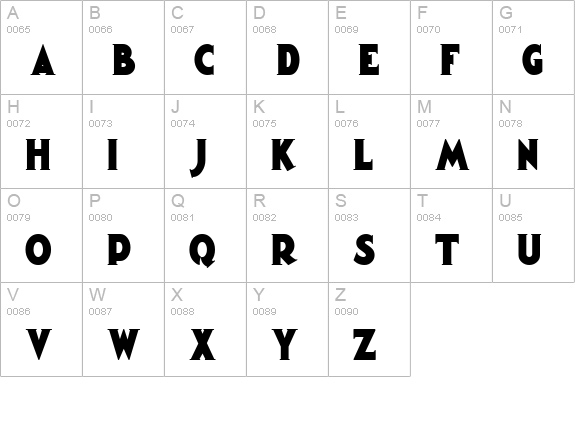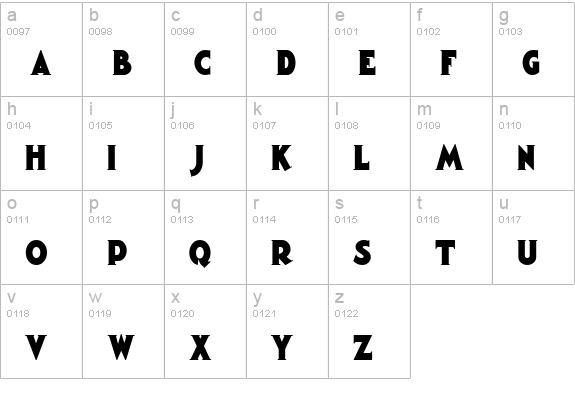
MagicLantern ExtraBold Font Details
MagicLantern ExtraBold is an extra-heavy, attention-grabbing variant in the MagicLantern typeface family \xE2\x80\x94 well suited to high-impact headlines, posters, and bold branding.
Introducing MagicLantern ExtraBold font, the epitome of boldness and sophistication. This remarkable typeface exudes an air of confidence and power, effortlessly commanding attention in any design project. With its strikingly thick strokes and sleek curves, MagicLantern ExtraBold stands tall, making a resounding statement. Designed for those seeking a font that demands to be noticed, MagicLantern ExtraBold is perfect for headings, logos, posters, and any other creative endeavor that requires a touch of magnificence. Its boldness is unmatched, ensuring that your message will be conveyed with unwavering impact. But what truly sets MagicLantern ExtraBold apart is that it is not only visually captivating, but also freely available to download at FontsMarket.com. That's right, this extraordinary font can be yours without spending a dime. Whether you're a professional designer or an enthusiast exploring the world of typography, MagicLantern ExtraBold offers you the opportunity to enhance your projects with its undeniable charm, completely free of charge. With its versatility, MagicLantern ExtraBold transcends the boundaries of design, effortlessly adapting to various themes and styles. From elegant and refined to bold and daring, this font seamlessly blends into any visual narrative, enhancing the overall aesthetic and leaving a lasting impression. Embrace the power of MagicLantern ExtraBold and let your creativity soar. Download this exceptional font today at FontsMarket.com and unlock a world of endless possibilities. With its mesmerizing presence and the freedom to explore its potential, MagicLantern ExtraBold is the perfect companion for your design journey.